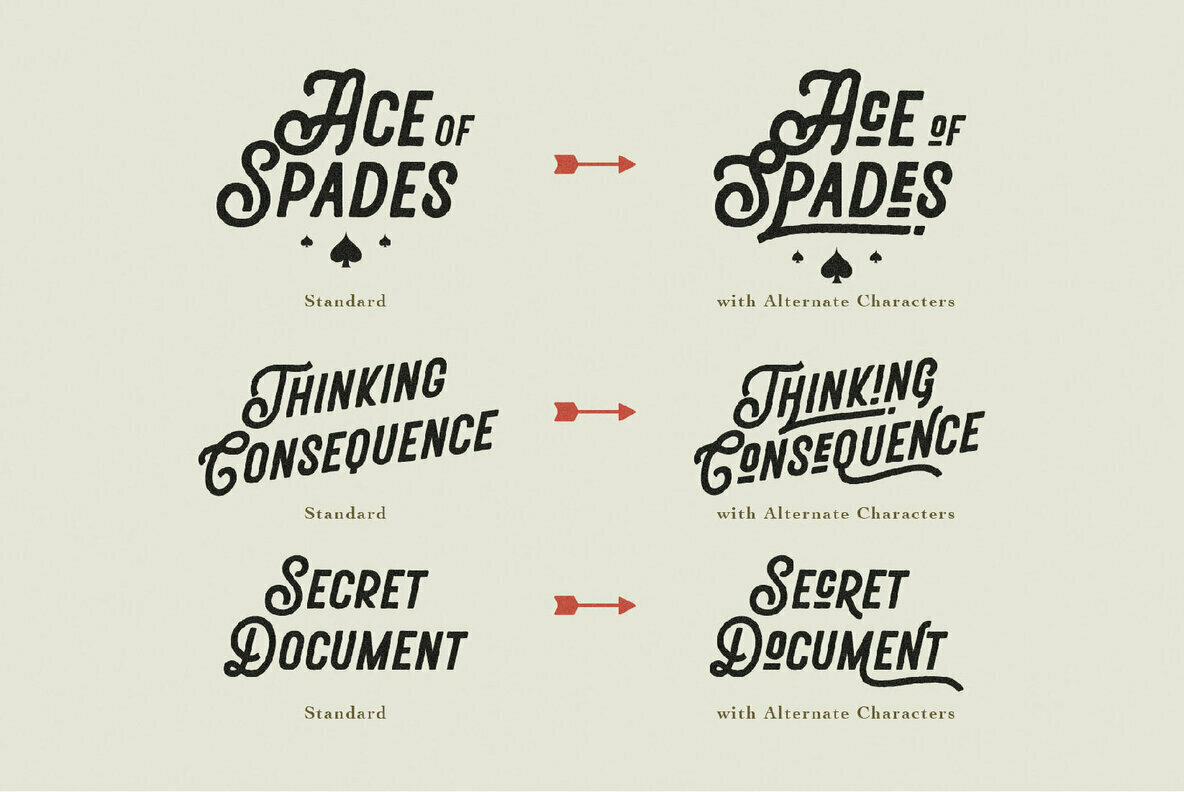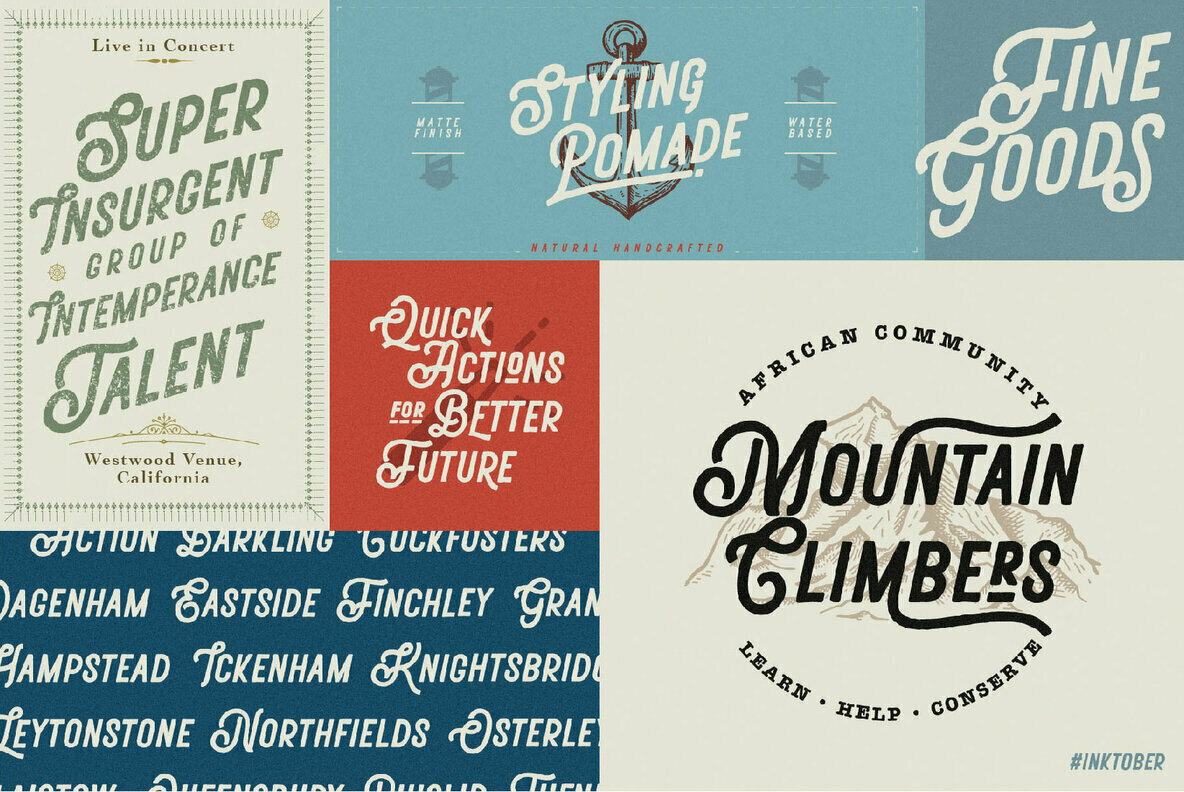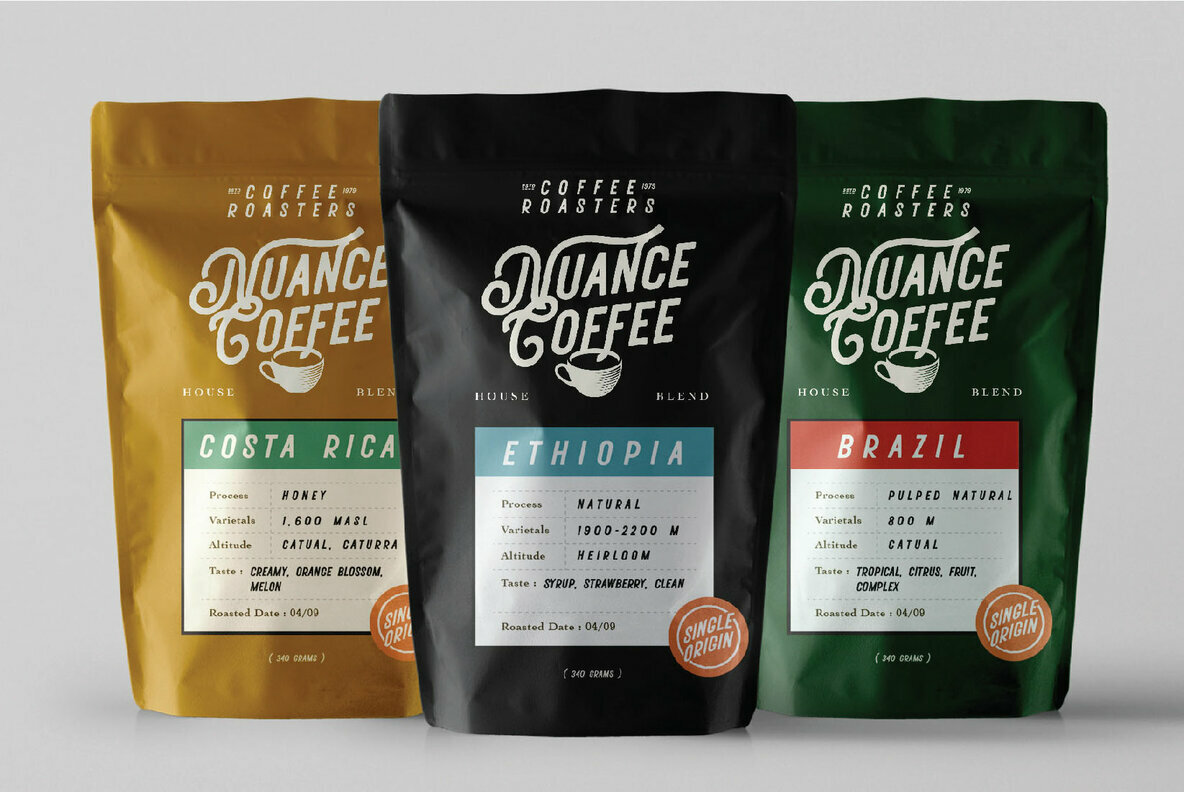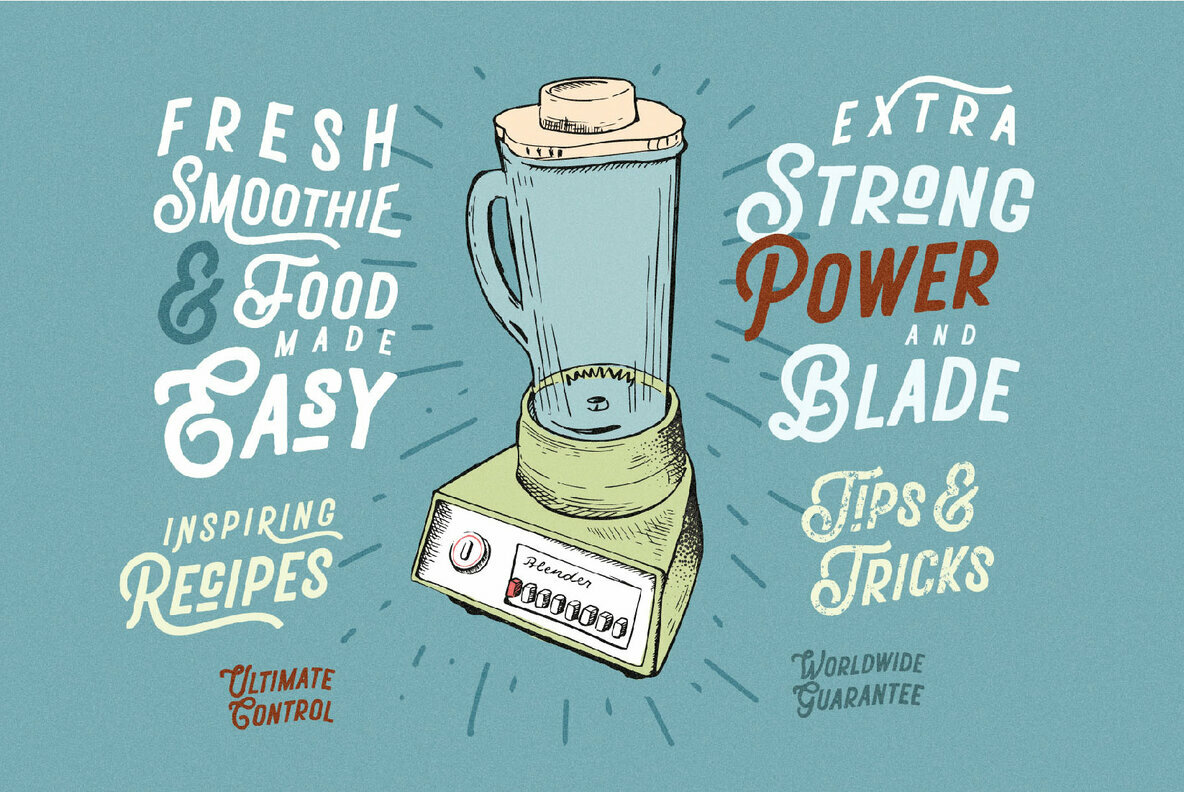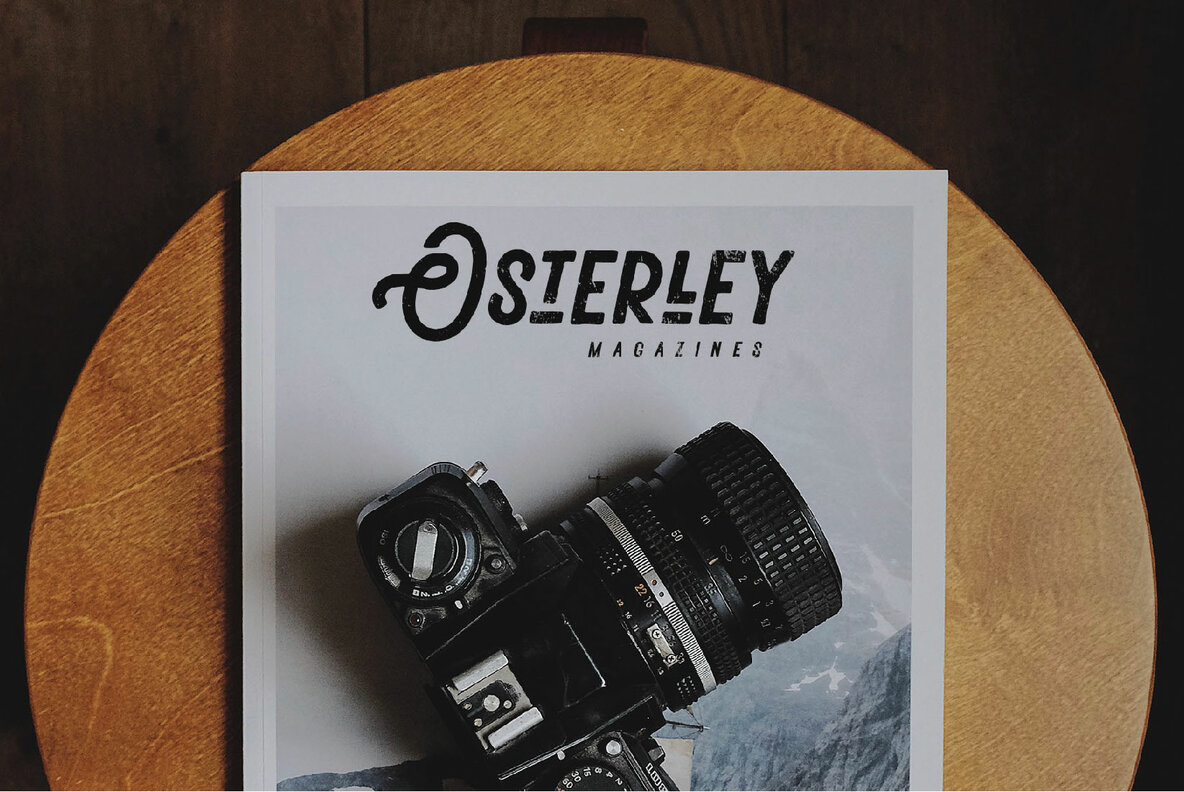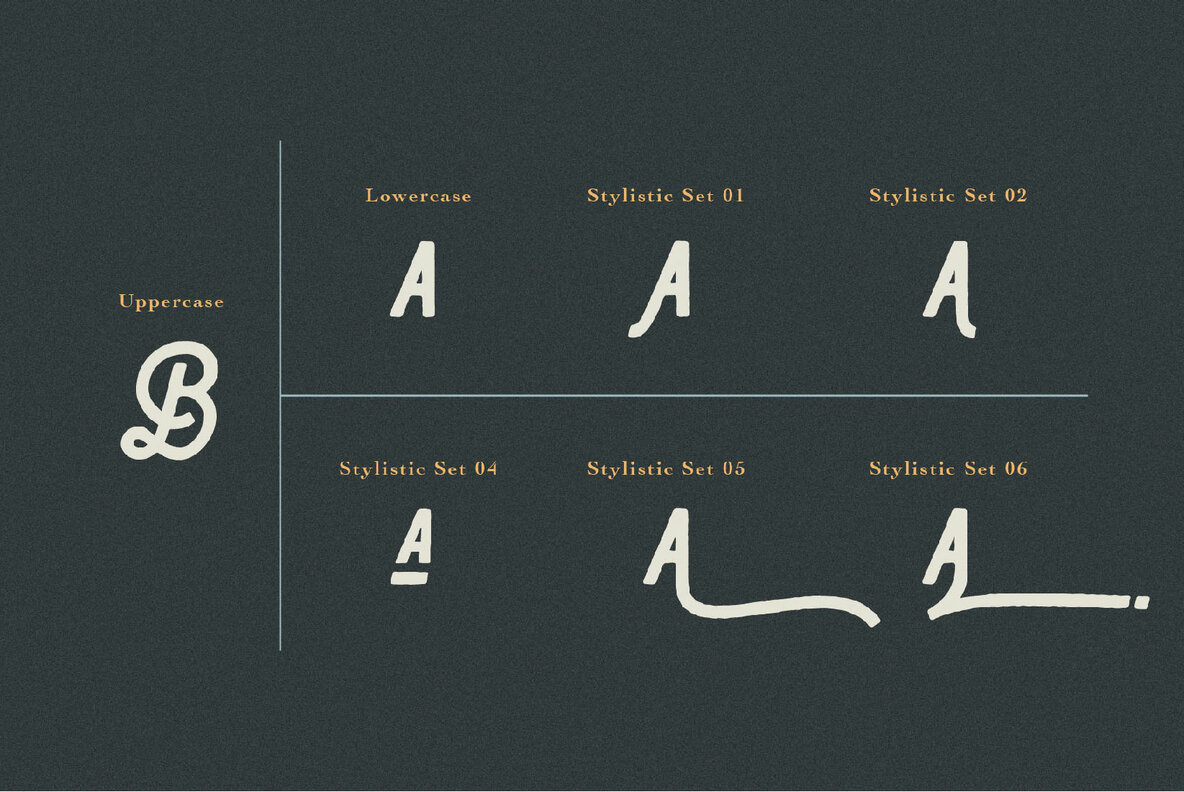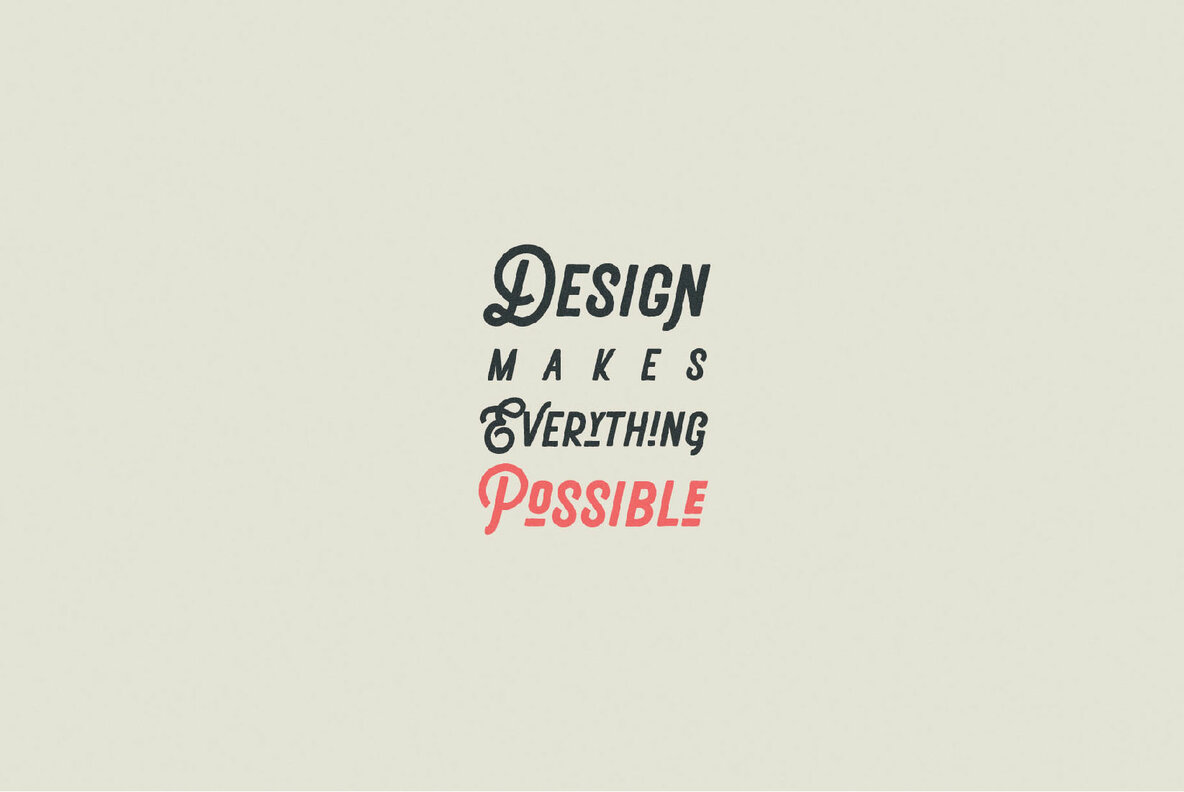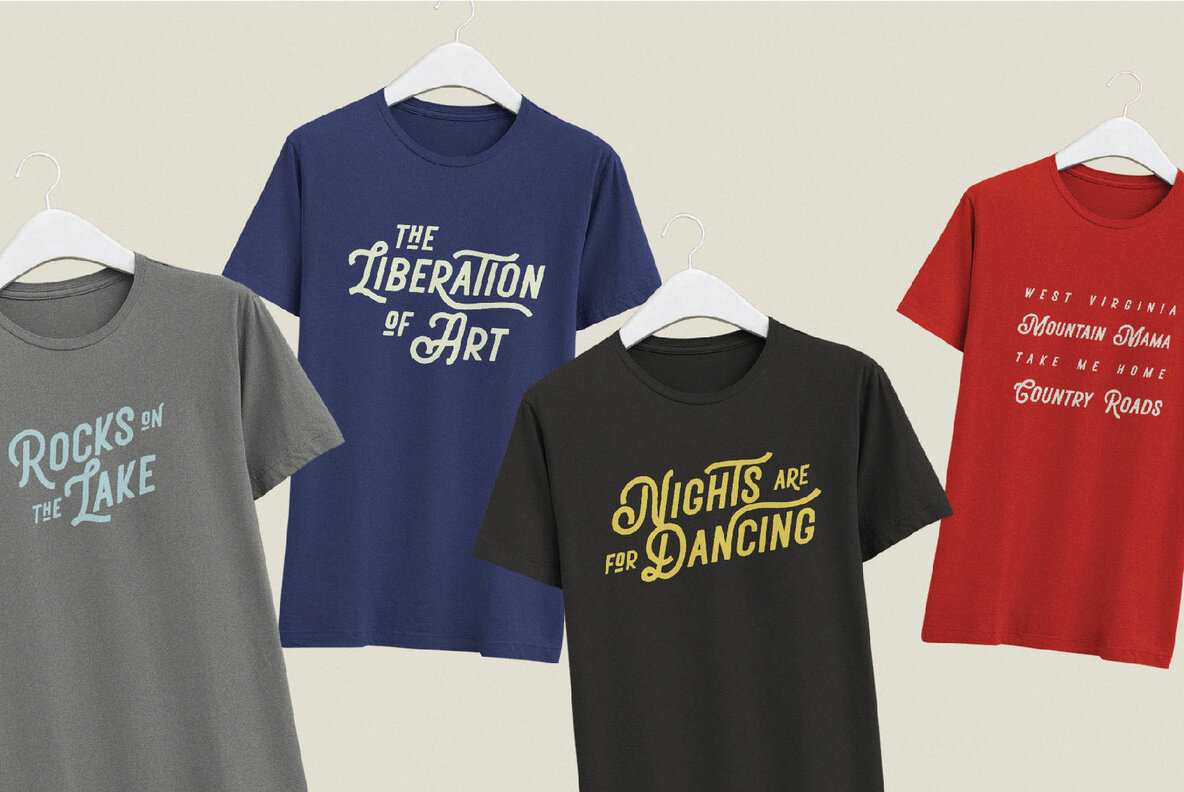
Deltras Font
Deltras Regular
Deltras by Abbasy Studio brings a remarkable fusion of classic typography and contemporary handlettering styles. Crafted to evoke the charm of vintage printing with smooth-edged precision, this display typeface adds a personalized touch to any creative endeavor. Whether designing traditional logos, labels, packages, or custom t-shirt graphics, Deltras seamlessly integrates to achieve a timeless aesthetic. Features:Deltras: Blending Classic Elegance with Modern Flair